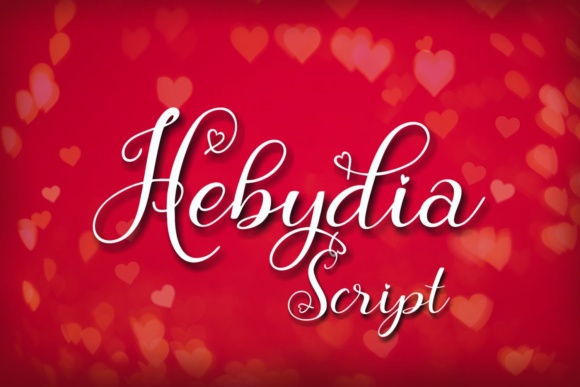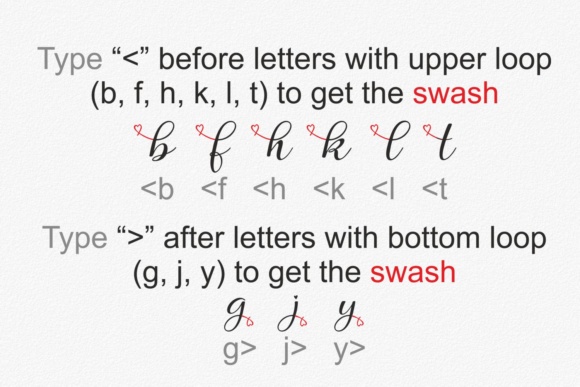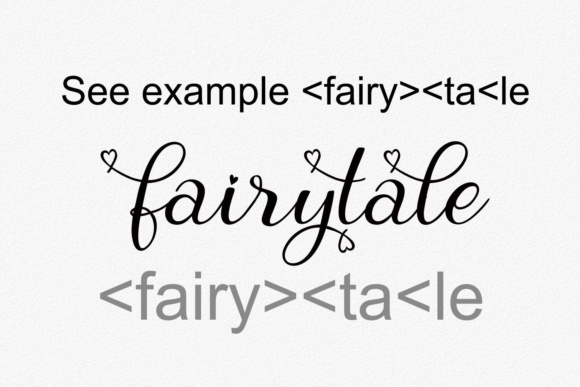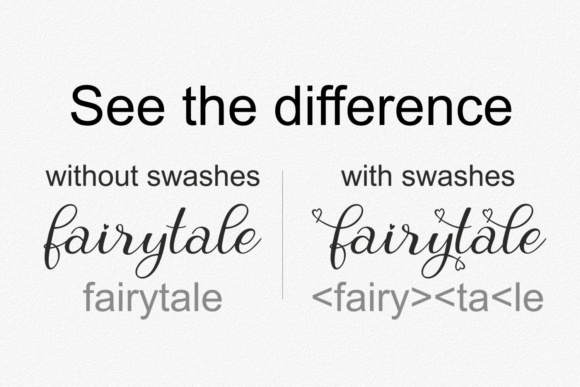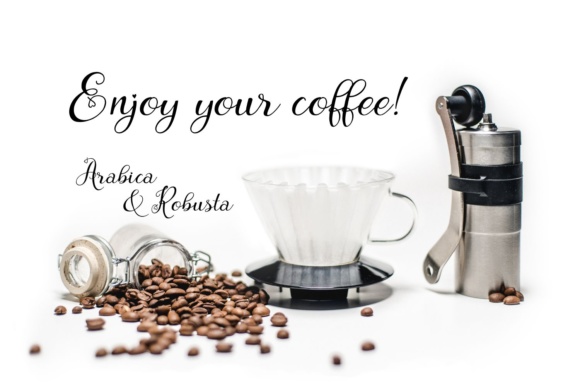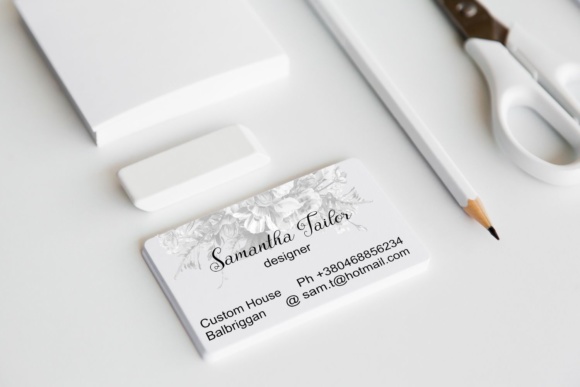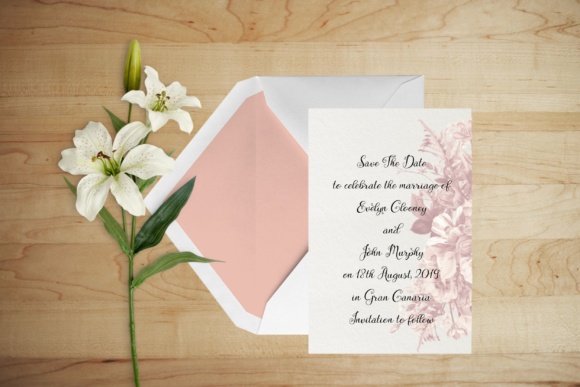
Hebydia Font
About Hebydia Font
Hebydia is a versatile, easy to use script font. It has heart decorations which will give your design a playful romantic feel. By combining the letters and basic characters you can easily get access to the swashes.